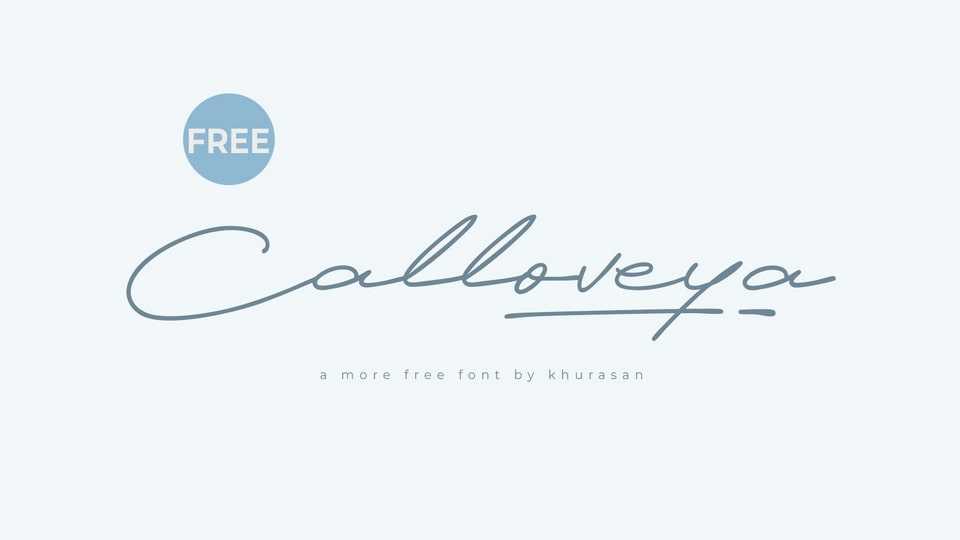
Download Calloveya font, a casually elegant handwritten typeface that effortlessly mimics the fluidity of a personal signature. With each stroke, Calloveya font captures the relaxed yet sophisticated essence of a handwritten autograph.